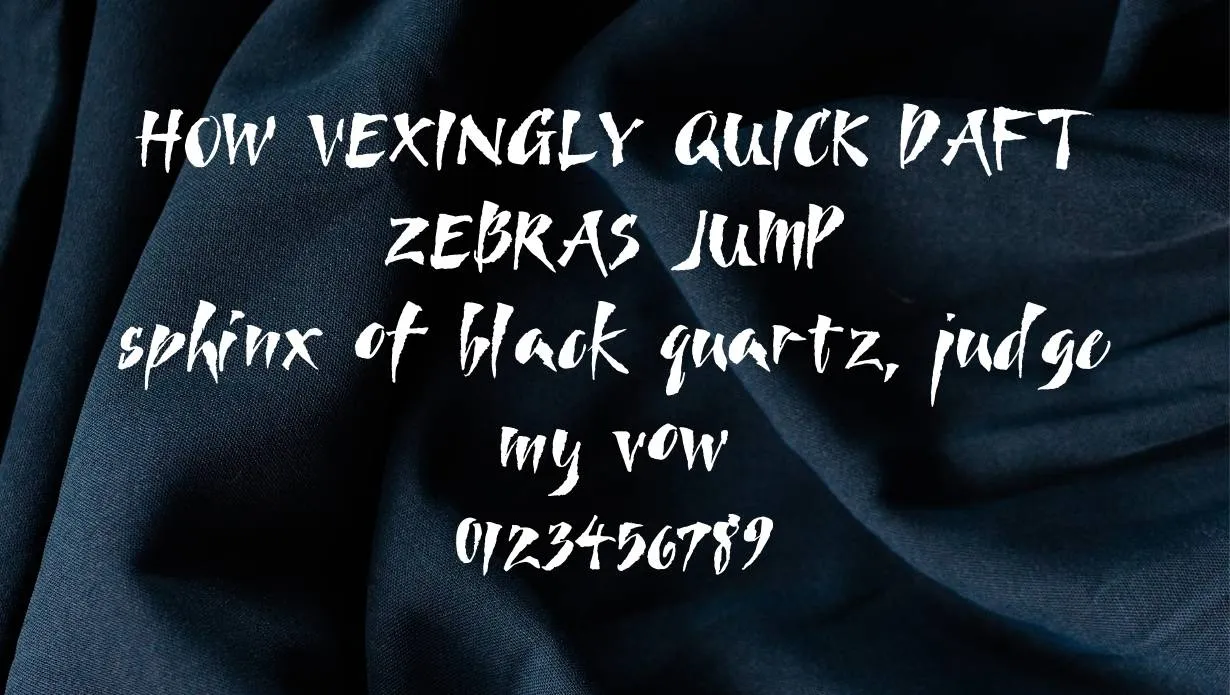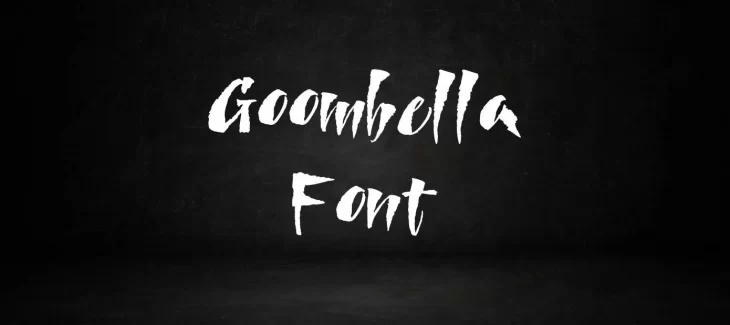
Goombella Font is a popular fancy font that is used by many people. It is known for its unique and stylish look. Goombella Font was created by Ray Antonio. It is believed to have originated in the early 2000s.
The glyph of this font has a unique and stylish look. The Font family includes regular, bold, and italic styles. The Font family is available in many different weights, from light to black. This font has become very popular in recent years.
This font texture has a high level of readability. This is one of the main reasons why this font family is so popular. This typeface style was inspired by some other unique and stylish typefaces and it is much closer to the LHF block font you can check out.
Who Used Goombella Font?
This typeface is often used for special occasions or as a display font. It is characterized by its ornate and playful letterforms. It is not currently present in google Fonts but you can also get it similar from the google font store. The online Canva software is also very helpful for making unique logos and designs.
This font is also commonly used for Logotypes, Posters, Flyers, Cards, Packaging, Branding, Web design, Mobile apps, Print design, and more. It can be used for resumes, cover letters, business documents, and more. This Font is also a good choice for body text in a book or article.
Goombella Font Family Appearance
| Name | Goombella Font |
| Designer | Ray Antonio |
| Style | Fancy |
What is Goombella Font used for?
Goombella Font is used for many purposes. Some of the most popular uses for Goombella Font include Websites, Logos, Business cards, Posters, and Flyers.
Is Goombella a good website font?
This font is an excellent website font because it is easy to read and works well on all screen sizes.